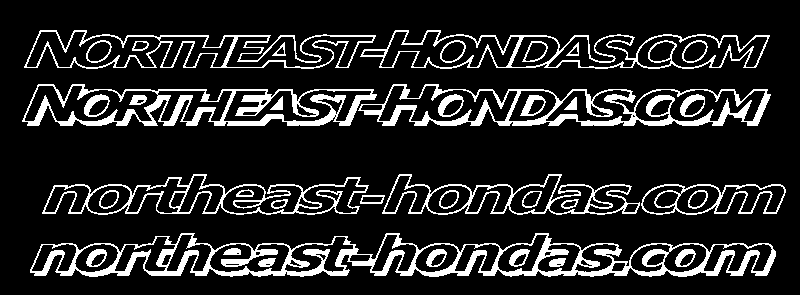
Font identification
I created these samples about a year or more ago for this customer who never ordered the stickers. I can not find the font to save my life. Can anyone identify this 3rd font for me?
It's been so badly stepped on that a positive ID is unlikely. It is reminiscent of Gill Sans Bold also known as Humanist 521 from Bitstream.
The typeface is Verdana Bold.
It has been stretched a bit and sheared artificially (along with being outlined and drop-shadowed). The distortion is not as offensive as some acts of font murder I see perpetrated on a sickeningly frequent basis. But still, one has to wonder why they didn't just go with Verdana Bold-Italic and apply the effects withtout distorting the text.